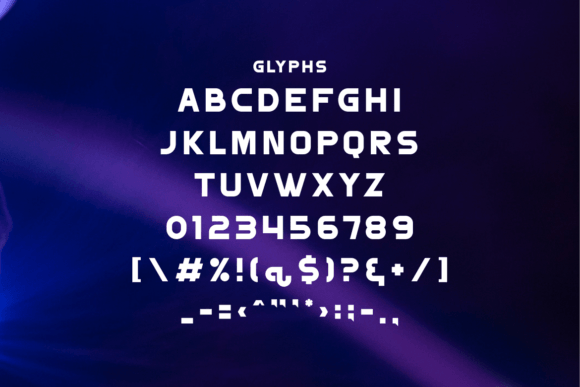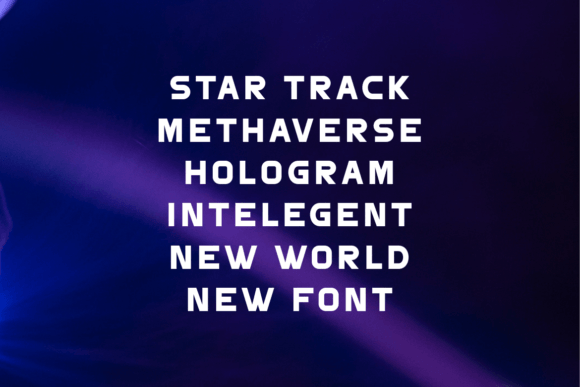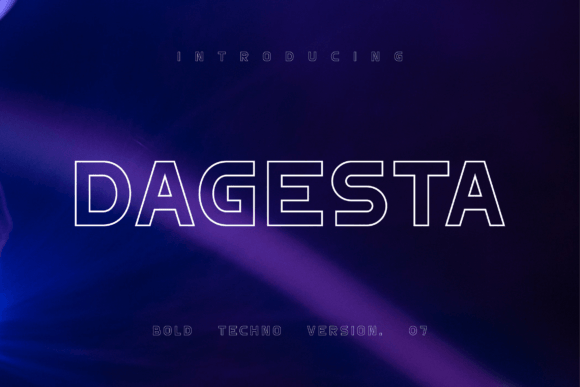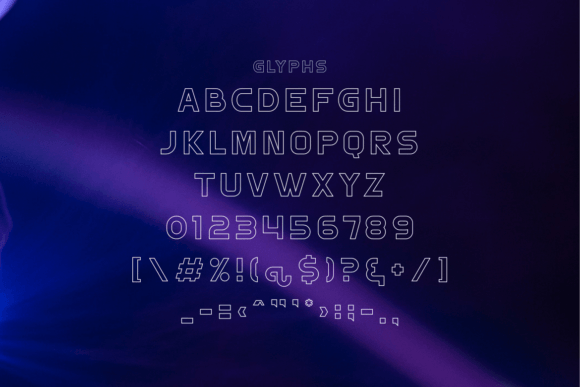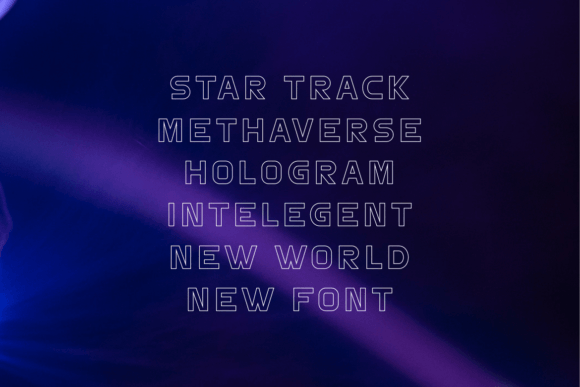
Introducing Dagesta Font: The Ultimate Modern Display Font
In the world of typography, a good font can make all the difference in the success of a design project. For designers and crafters looking for a sleek and modern display font that captures attention, Dagesta Font is an excellent choice. With its clean lines, boldness, and unique contemporary look, Dagesta is perfect for headlines, posters, branding, and any project that demands a fresh and stylish touch.
What Makes Dagesta Font Stand Out?
So, what sets Dagesta Font apart from other display fonts? Here are a few key features that make it a standout:
- Clean Lines: Dagesta Font boasts clean and precise lines that give it a crisp, modern look. This makes it perfect for digital displays, print materials, and any project where clarity is key.
- Boldness: With its bold and striking appearance, Dagesta Font demands attention. It’s ideal for headlines, titles, and any text that needs to stand out from the background.
- Unique and Contemporary: Dagesta Font has a unique and contemporary design that sets it apart from more traditional fonts. Its modern look and feel make it perfect for brands and designers looking to make a statement.
Uses for Dagesta Font
Dagesta Font is incredibly versatile and can be used in a variety of design projects, including:
- Headlines and Titles: Dagesta Font is perfect for headlines, titles, and any text that needs to grab attention.
- Posters and Flyers: With its bold and striking appearance, Dagesta Font is ideal for posters, flyers, and any print materials that need to stand out.
- Branding: Dagesta Font can be used to create a unique and memorable brand identity. Its modern look and feel make it perfect for startups, businesses, and organizations looking to rebrand.
- Digital Displays: Dagesta Font is optimized for digital displays, making it perfect for website headers, social media graphics, and any digital project that requires a modern and stylish touch.
Benefits of Using Dagesta Font
So, why should designers and crafters choose Dagesta Font for their projects? Here are a few benefits of using this modern display font:
- Instant Recognition: Dagesta Font’s bold and striking appearance ensures instant recognition and attention.
- Professional Look: Dagesta Font’s clean lines and modern design give it a professional look that’s perfect for businesses, organizations, and individuals looking to make a statement.
- Versatility: Dagesta Font can be used in a variety of design projects, from print materials to digital displays.
- Easy to Read: Despite its boldness, Dagesta Font is easy to read, making it perfect for headlines, titles, and any text that needs to be clear and concise.
Tips for Using Dagesta Font
To get the most out of Dagesta Font, here are a few tips to keep in mind:
- Use it Sparingly: Dagesta Font’s boldness can be overwhelming if used excessively. Use it sparingly to create emphasis and draw attention.
- Pair it with Other Fonts: Dagesta Font can be paired with other fonts to create a unique and visually appealing combination.
- Experiment with Colors: Dagesta Font looks great in a variety of colors. Experiment with different colors to find the perfect combination for your project.
| Font Name | Dagesta Font |
| Author | Monoletter |
In conclusion, Dagesta Font is a sleek and modern display font that’s perfect for designers and crafters looking to add a fresh and stylish touch to their projects. With its clean lines, boldness, and unique contemporary look, Dagesta Font is ideal for headlines, posters, branding, and any project that demands attention. Whether you’re a seasoned designer or just starting out, Dagesta Font is a great addition to your typography toolkit.